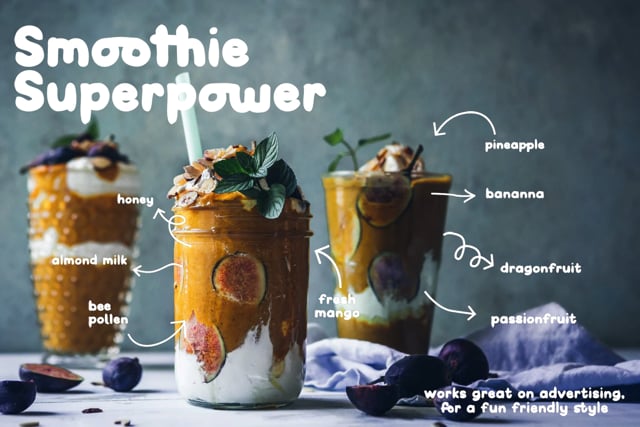
Bubble Font Famlily
Plumpton Font Kit
- Numbers, Punctuation, Multi-Language support and Alternates, with over 500 Glyphs per font
- 1 Supporting Logo Shape font
Bubble Font Pack
The Plumpton Font Family
Plumpton is a round bubbly playful, child-like typeface bringing personality to your designs. Cute and Friendly font that is full of personality. Perfect for creating quotes, logos, or just adding a hand-written touch to any project!
Great for use as headings, banners, labels and for a bold statement. Both upper and lowercase letters are included in this font style, along with Alternates and even a range of shapes, arrows and designs, all with over 200 glyphs per font. Also included are some doodles to help bring your projects to life. Included in this pack is a range of editable designed templates using the font, including:
- Plumpton Shapes font to bring some personality to the design - with over 292 shapes!